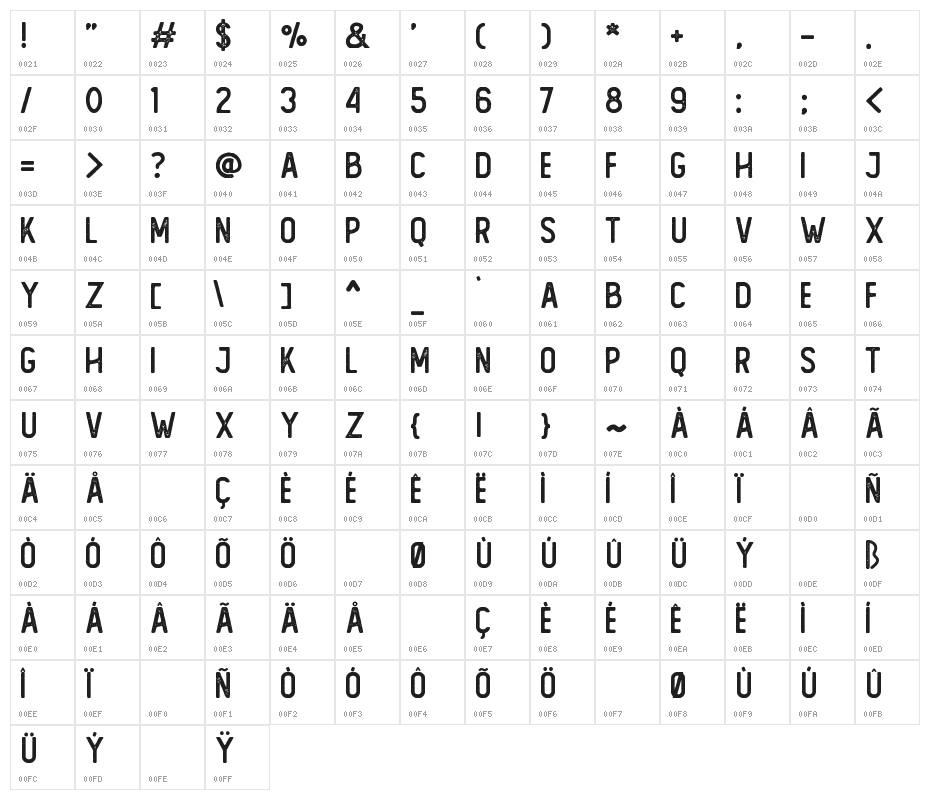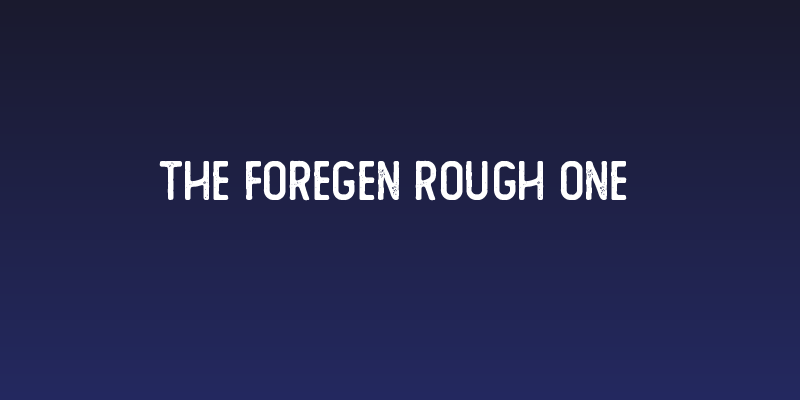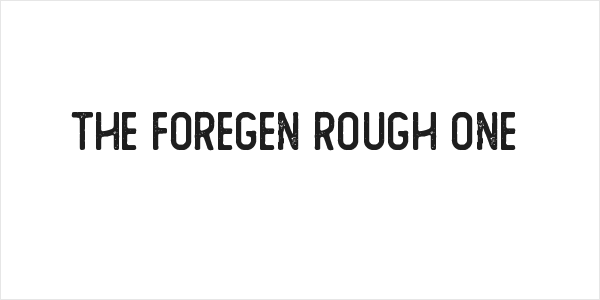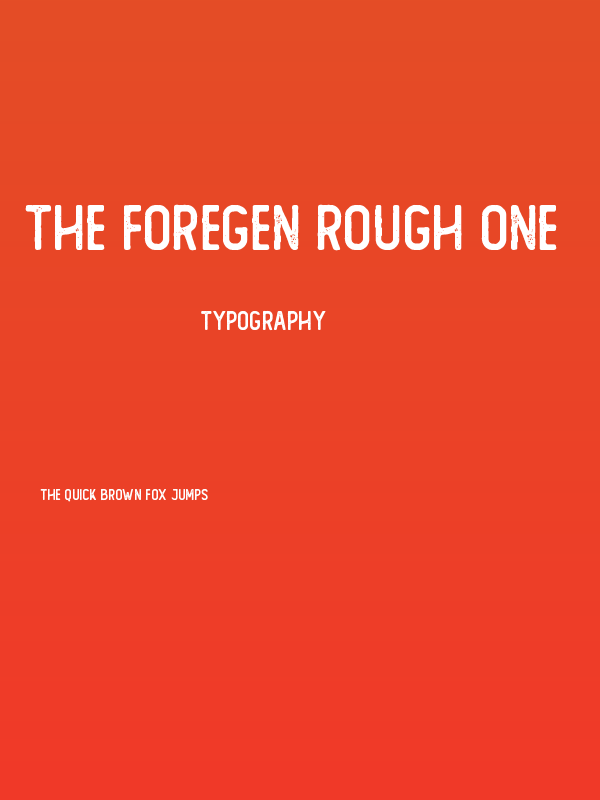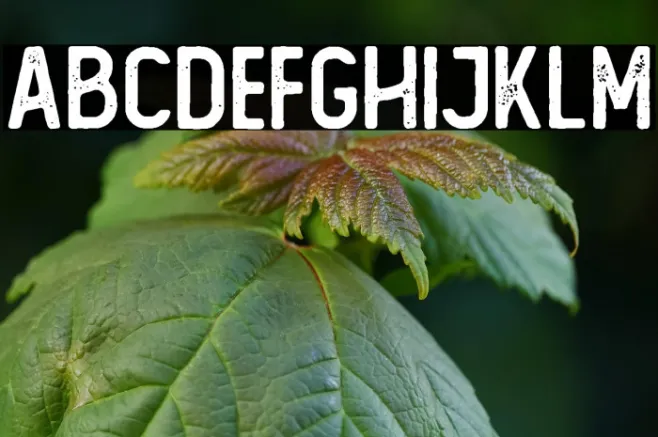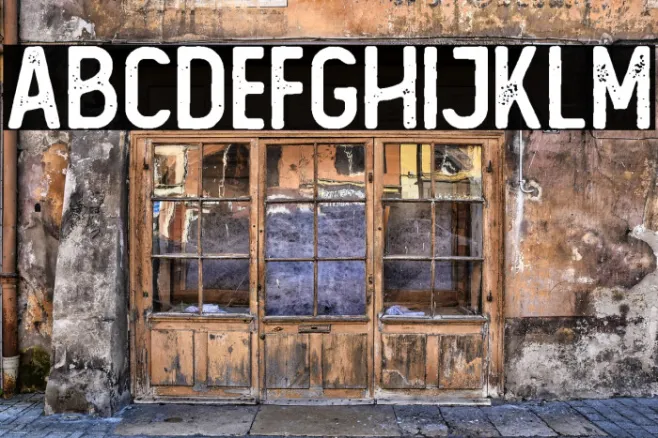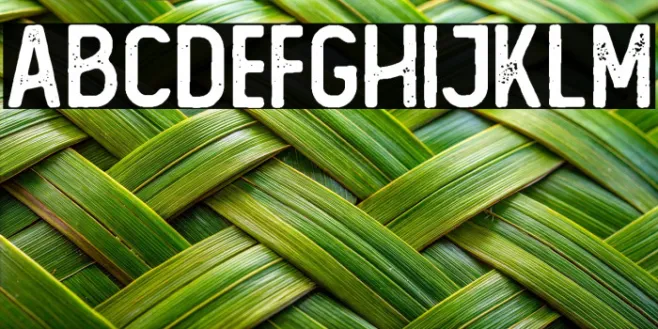
The Foregen Rough One Font
The Foregen Rough One Description
This font features a rugged, distressed appearance, giving it a vintage and worn-out look. The characters are bold and slightly condensed, with irregular edges that suggest a hand-crafted or stamped style. The texture within each letter adds a unique, tactile quality, making it stand out for designs that require a rustic or industrial feel. The uppercase and lowercase letters maintain a consistent style, while the numerals and special characters complement the overall aesthetic. This font is ideal for projects that aim to convey authenticity and a touch of nostalgia.
| Proposed Projects | Ideal for branding, posters, packaging, and any design needing a rustic or industrial touch. |